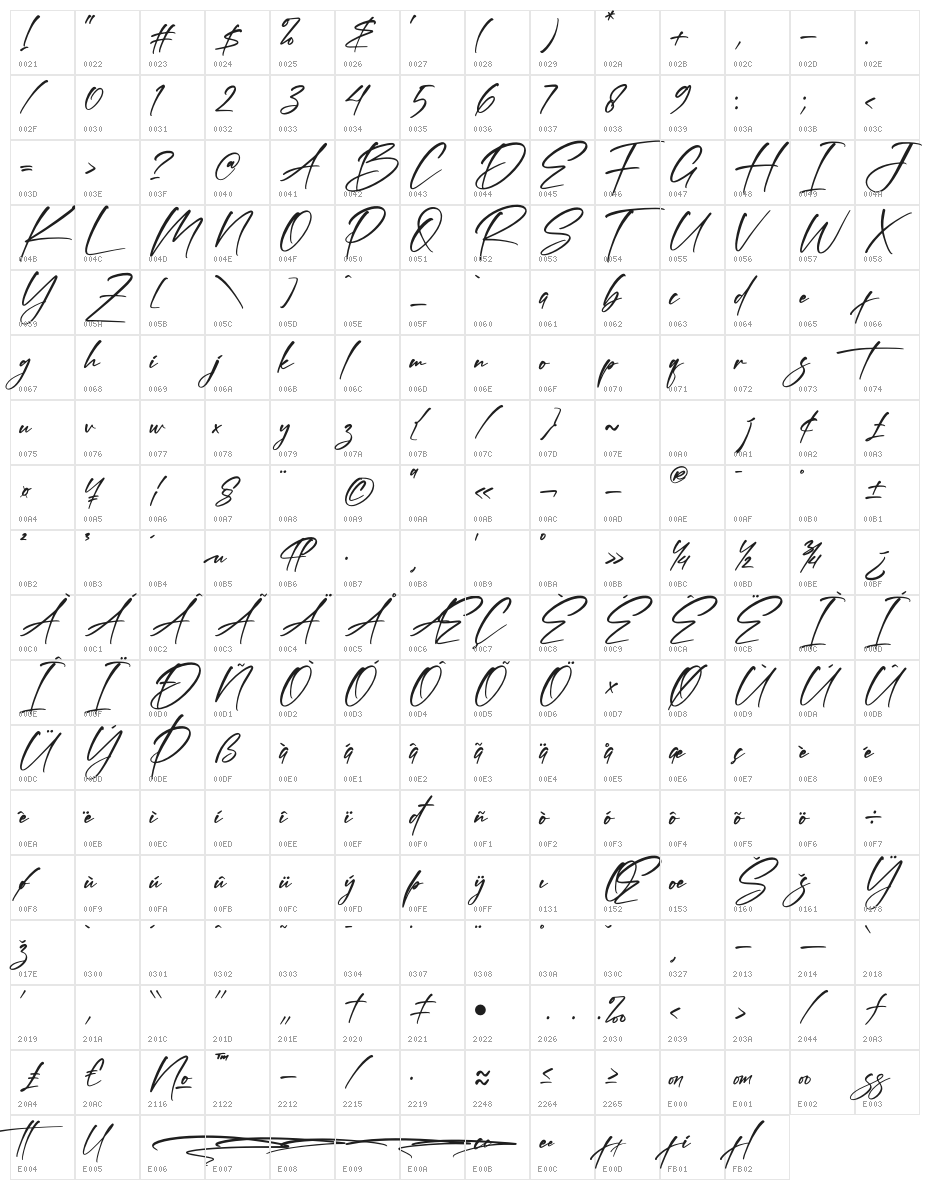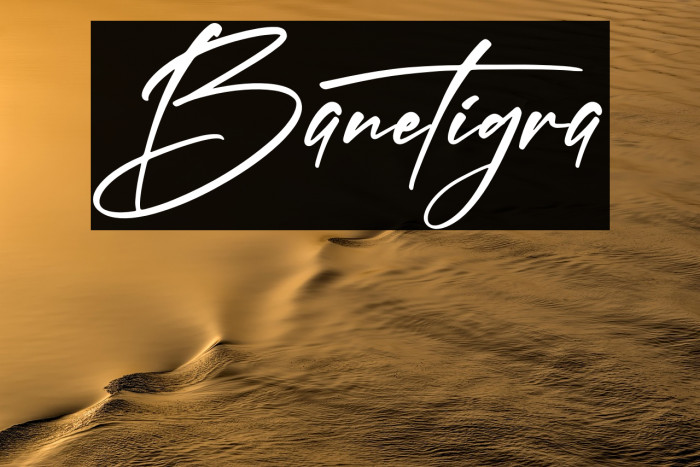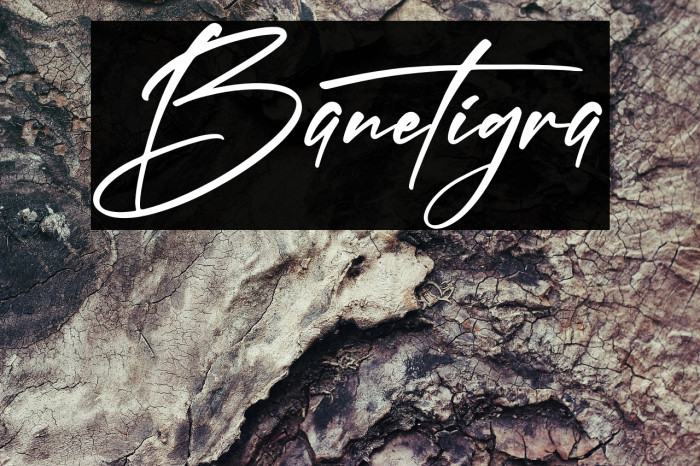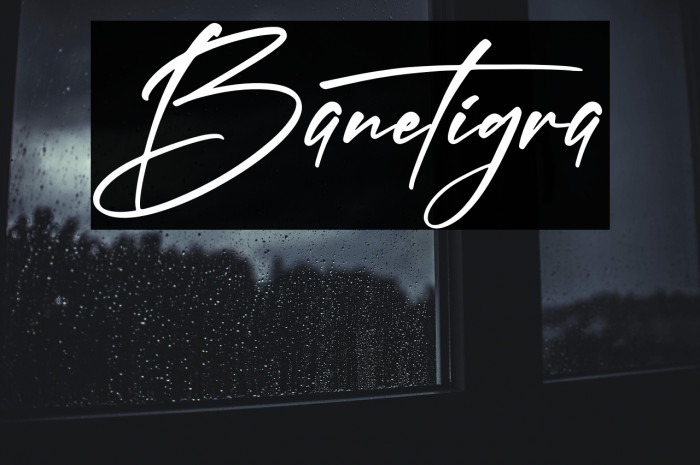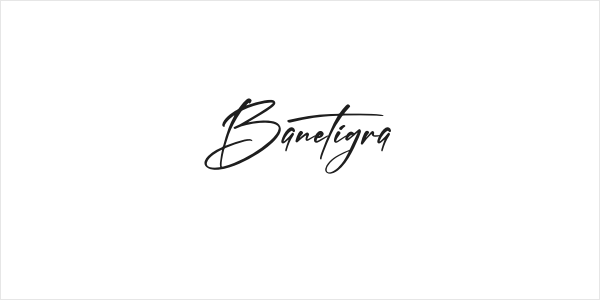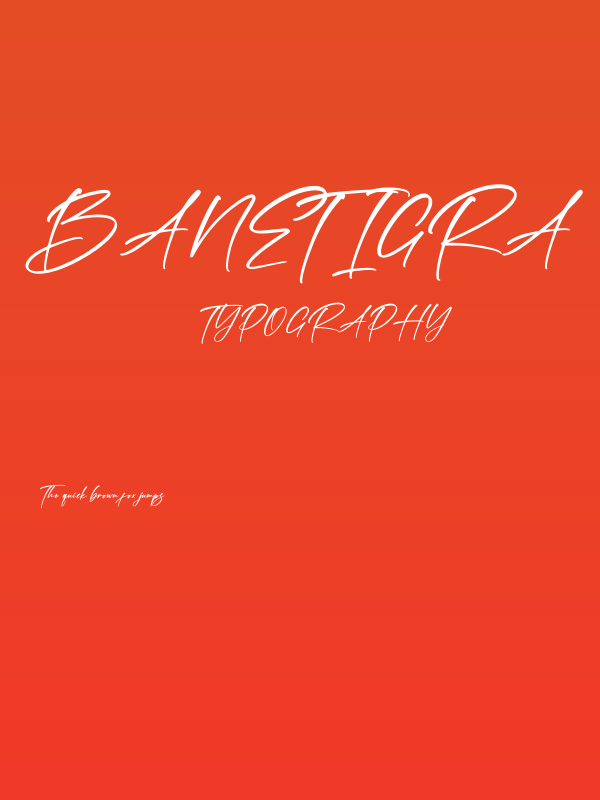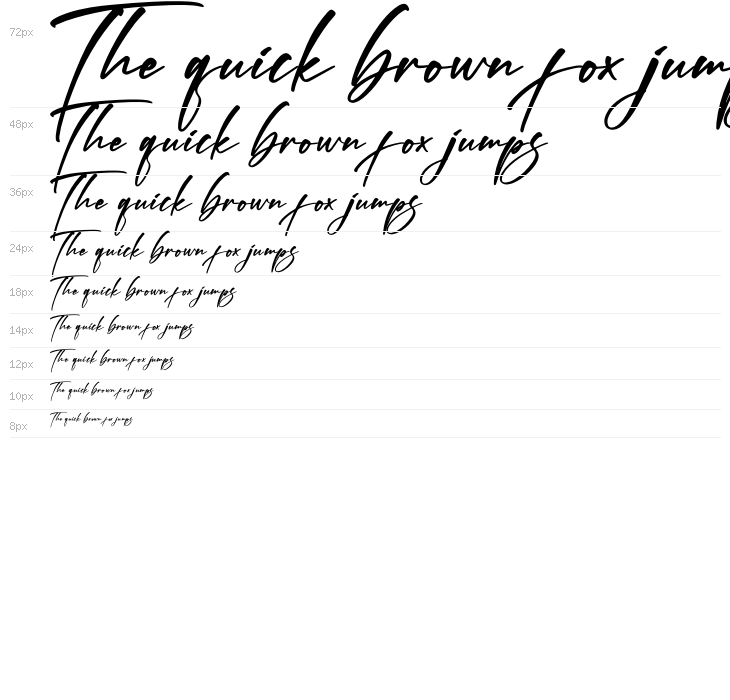
Banetigra Font
Banetigra Description
A dynamic and expressive handwritten script font with a modern flair, featuring fluid strokes and varying line thickness.
| Use Case | Logos, Headlines |
| Proposed Projects | Invitations, branding, social media graphics. |